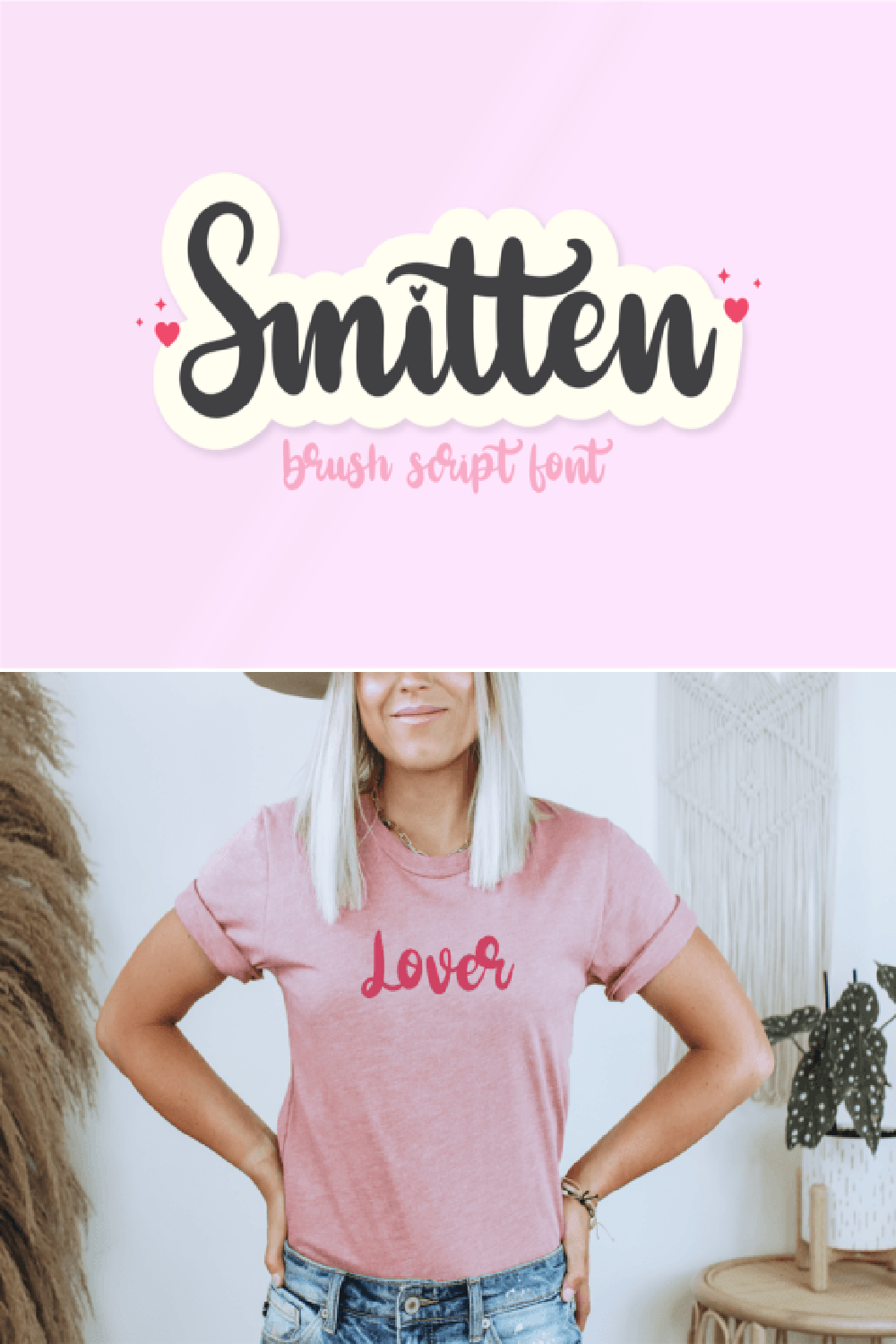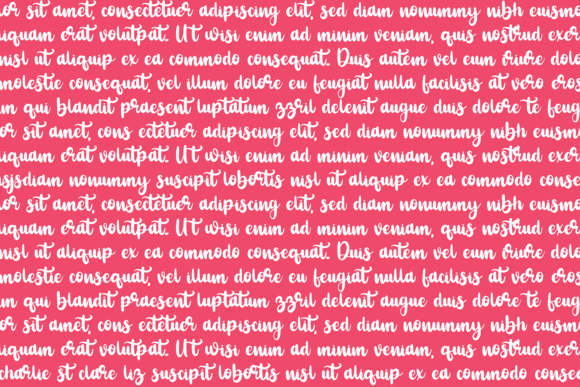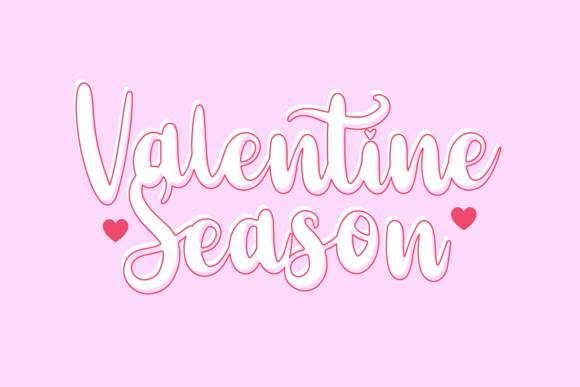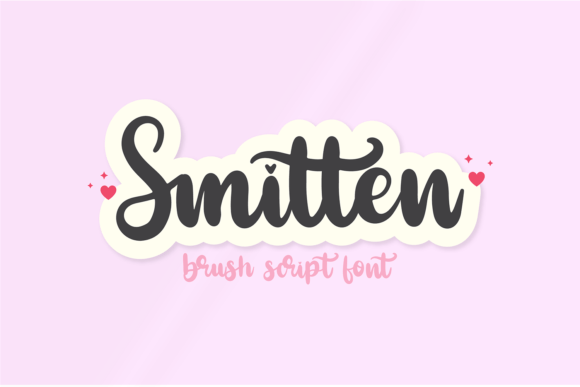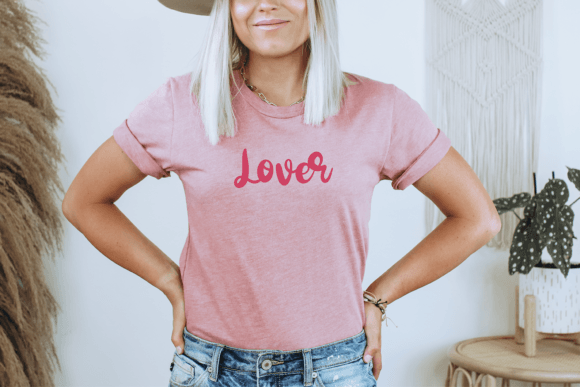
Smitten Font: A Cute Valentine’s Script Font for Cricut & DIY Projects
About the Smitten Font
Let us introduce you to Smitten Font, where timeless design meets modern craftsmanship. SMITTEN bold brush script Valentine’s Day font.
This font was made specifically for your Valentine’s/Wedding projects. Use it for Valentine’s cards, crafts for decor, invitations, and more!